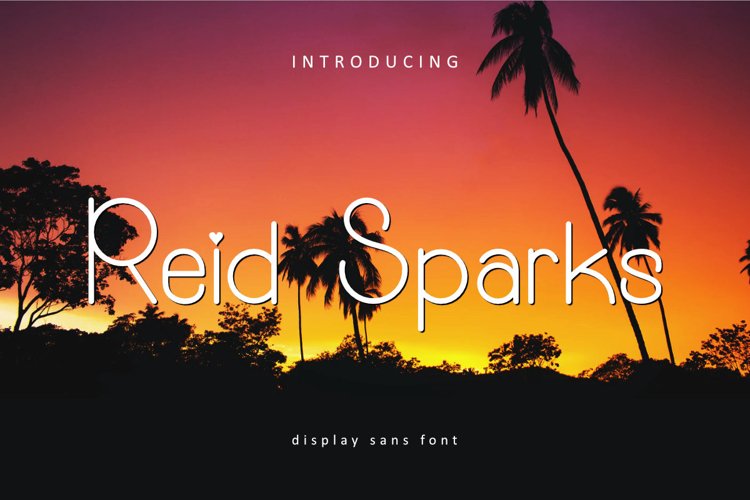
Reid Sparks is a font a playfull font with cheerful theme for your fun project. Priest is to use for any kind of design such as branding projects, logo, social media posts, advertisements, product packaging, product designs, label, photography, watermark, invitation, stationery and any projects that need fun taste.